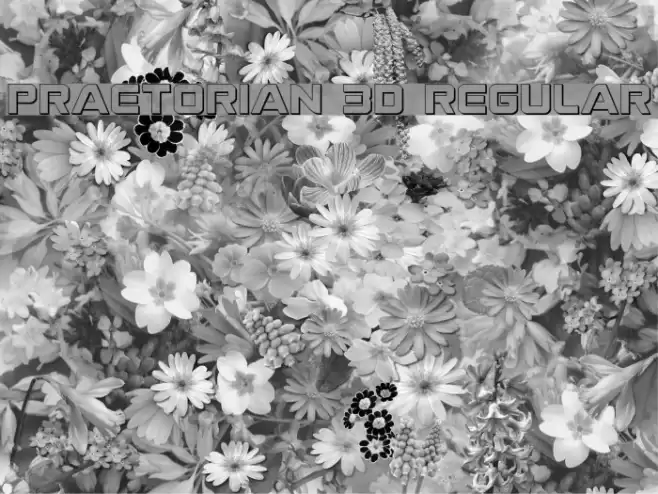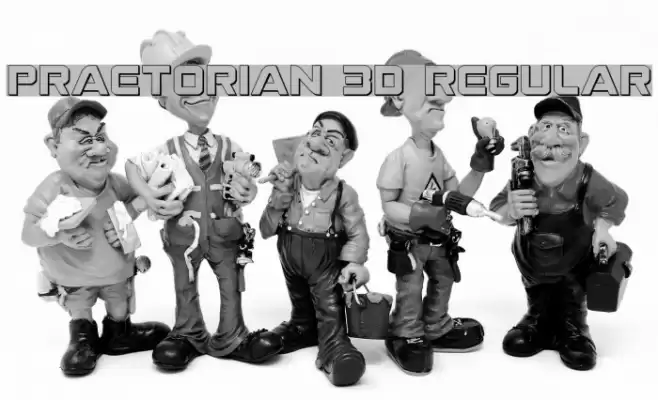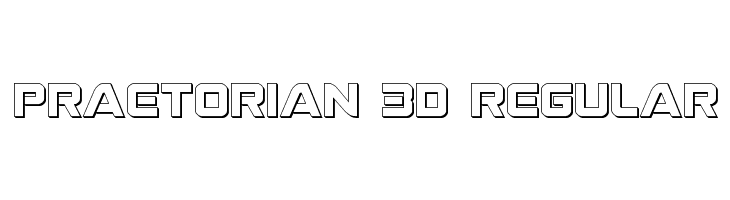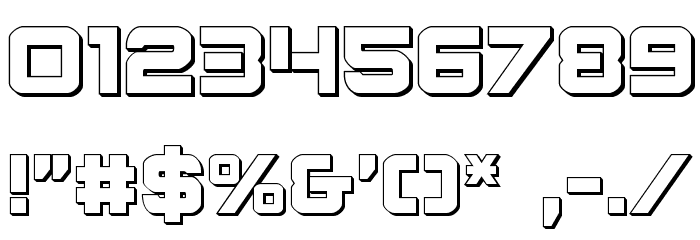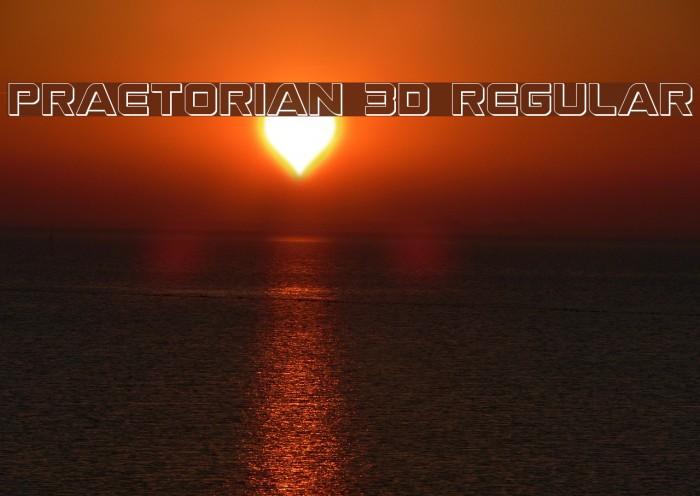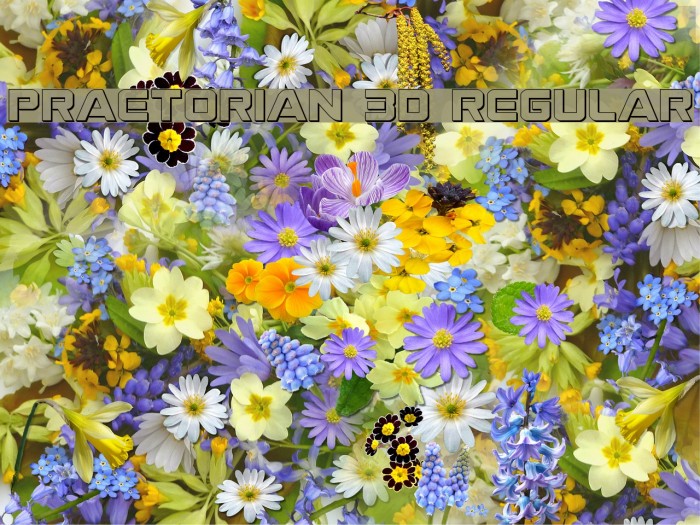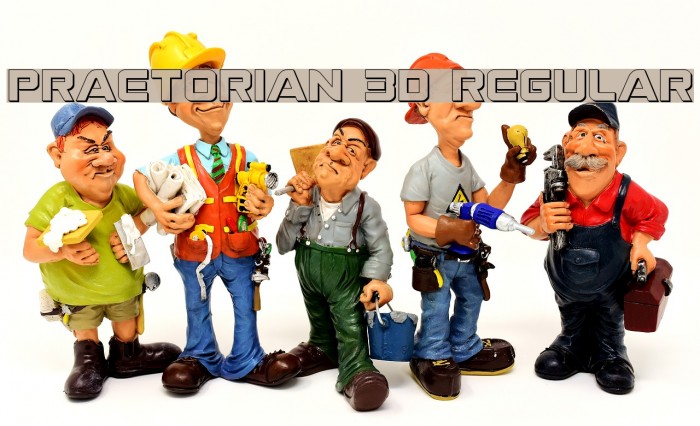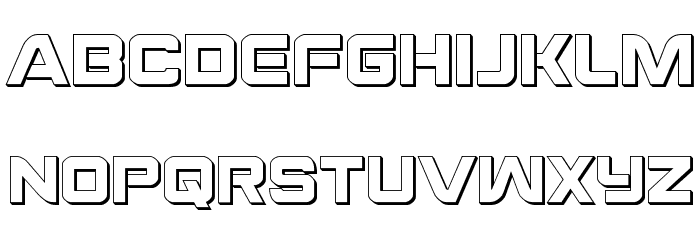
Praetorian 3D Regular Font
Praetorian 3D Regular Description
This font features a bold, three-dimensional appearance with a strong geometric structure. Each character is outlined, creating a shadow effect that gives it depth and a sense of solidity. The uppercase letters are uniform in height, with sharp angles and clean lines that convey a modern and futuristic aesthetic. The numbers and special characters maintain this style, ensuring consistency across all glyphs. This font is ideal for making a statement in any design, drawing attention with its unique 3D effect.
A bold, 3D geometric font with a modern, futuristic style from Uncategorized fonts.
- Proposed Projects: Ideal for logos, posters, video game titles, and any design requiring a bold, eye-catching typeface.